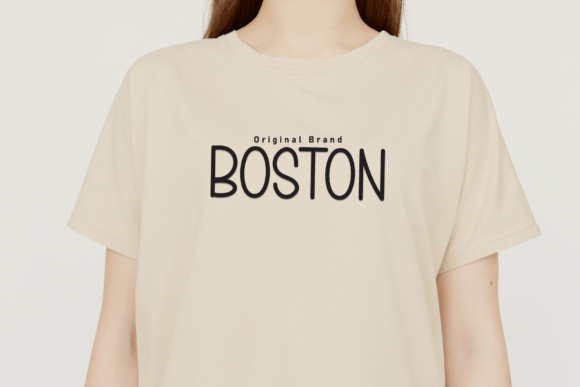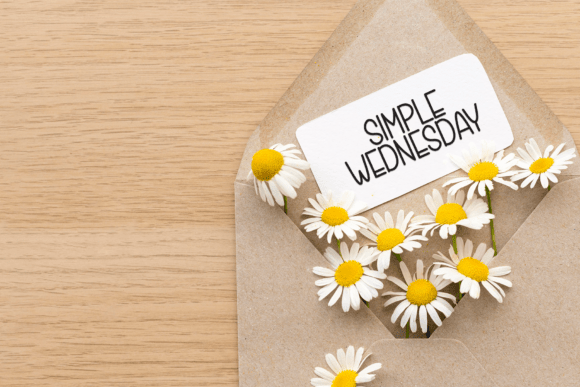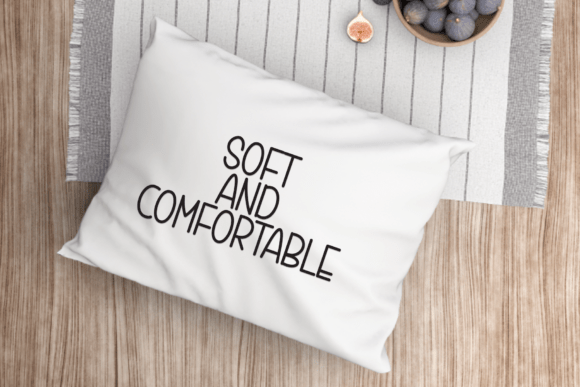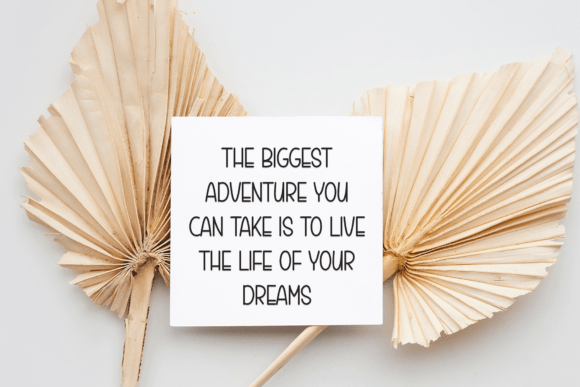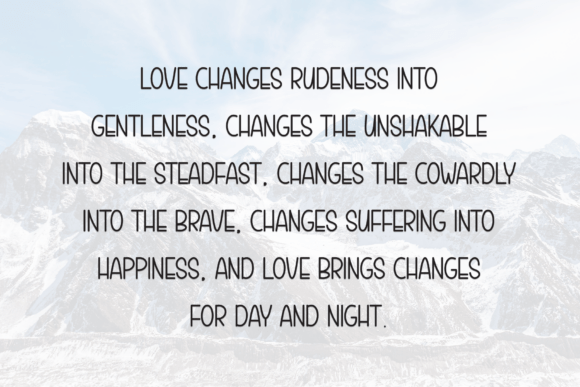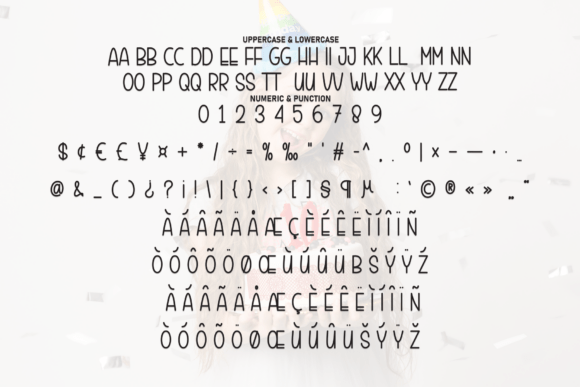
Introducing Happy Birthday Font: The Perfect Blend of Simplicity and Friendliness
Are you tired of using the same old fonts for your designs? Look no further! Happy Birthday Font is here to revolutionize the way you approach typography. This casual and neat display font is designed to bring a friendly and approachable vibe to your projects, making it perfect for designers and crafters alike.
What Makes Happy Birthday Font So Special?
Happy Birthday Font combines simplicity with a warm and inviting touch, making it ideal for a wide range of design applications. Its clean lines, balanced letterforms, and subtle rounded edges capture the essence of modern handwritten typography with a polished finish. This font is perfect for adding a personal touch to your branding, headlines, packaging, and digital content.
Key Features of Happy Birthday Font
- Clean Lines: Happy Birthday Font features clean lines that give it a crisp and modern look, making it perfect for designs that require a bit of sophistication.
- Balanced Letterforms: The font’s balanced letterforms ensure that each character is harmonious and visually appealing, making it easy to read and understand.
- Subtle Rounded Edges: The subtle rounded edges add a touch of warmth and friendliness to the font, making it perfect for designs that require a more approachable vibe.
- Versatile Style: Happy Birthday Font is versatile and can be used for a wide range of design applications, from branding and headlines to packaging and digital content.
Why Choose Happy Birthday Font?
There are many reasons why Happy Birthday Font stands out from the rest. Here are a few:
- Easy to Read: The font’s clean lines and balanced letterforms make it easy to read, even at small sizes.
- Highly Versatile: Happy Birthday Font can be used for a wide range of design applications, making it a great addition to any designer’s toolkit.
- Unique Style: The font’s subtle rounded edges and modern look make it unique and visually appealing.
- Time-Saving: With Happy Birthday Font, you can create professional-looking designs in no time, saving you time and effort.
How to Use Happy Birthday Font in Your Designs
Using Happy Birthday Font in your designs is easy. Here are a few tips to get you started:
- Branding: Use Happy Birthday Font to create a unique and memorable brand identity that stands out from the crowd.
- Headlines: Use the font to create eye-catching headlines that grab attention and draw the reader in.
- Packaging: Add a personal touch to your packaging designs with Happy Birthday Font, making them more appealing to customers.
- Digital Content: Use the font to create engaging and visually appealing digital content, such as blog posts, social media graphics, and more.
In conclusion, Happy Birthday Font is a versatile and visually appealing font that is perfect for designers and crafters alike. Its clean lines, balanced letterforms, and subtle rounded edges make it ideal for a wide range of design applications. Whether you’re looking to create a unique brand identity, eye-catching headlines, or engaging digital content, Happy Birthday Font is the perfect choice. So why wait? Download Happy Birthday Font today and take your designs to the next level!